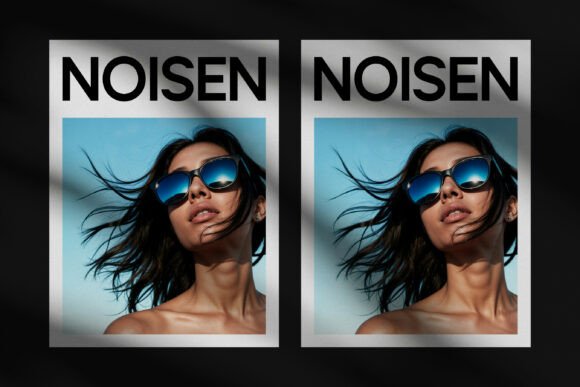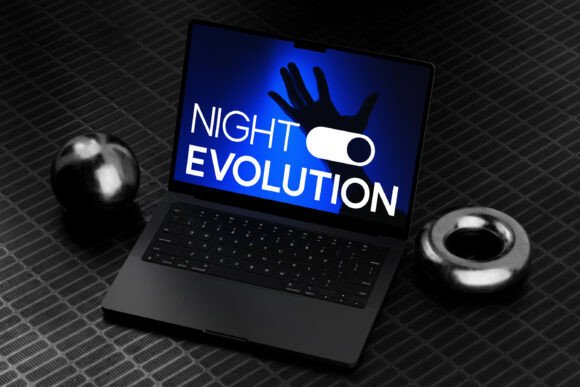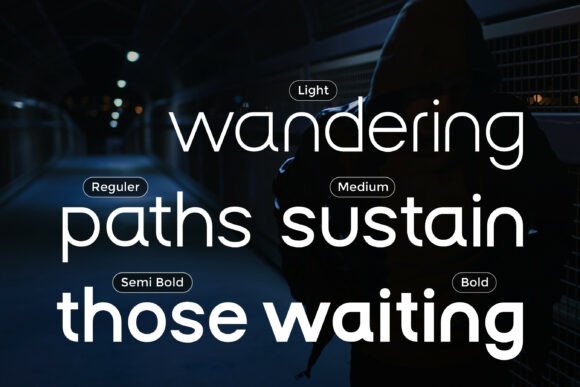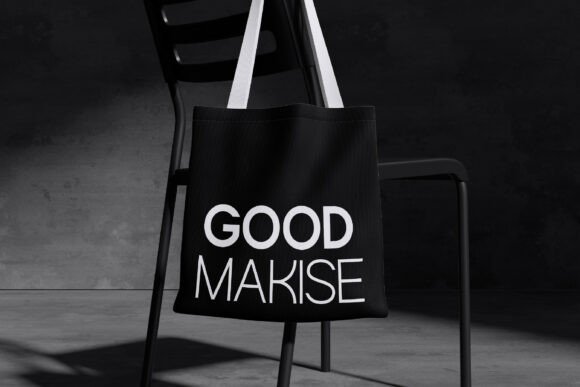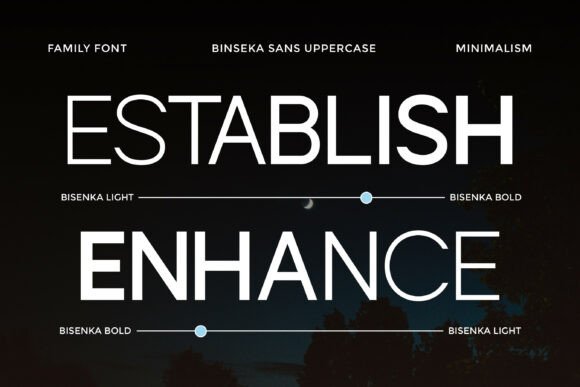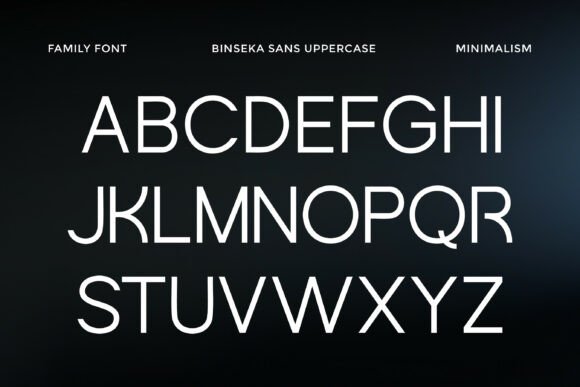
Introducing Binseka Font: The Ultimate Modern Sans Serif for Designers and Crafters
In the world of typography, a font can make or break a design. With the ever-evolving landscape of visual communication, designers and crafters are constantly on the lookout for typefaces that not only convey their message effectively but also add an extra layer of aesthetic appeal. This is where Binseka Font comes into play – a modern sans serif family font that embodies clarity, versatility, and contemporary style. In this article, we’ll dive deep into the features, benefits, and potential applications of Binseka, exploring why it has become a go-to choice for professionals seeking a clean, professional, and minimalist look.
The Design Philosophy Behind Binseka
Binseka is the result of meticulous design and a deep understanding of typographic principles. Its creation was guided by the need for a font that could deliver clear and readable text across various platforms and applications, from digital screens to print materials. The designers aimed to craft a typeface that would offer a harmonious blend of modernity and functionality, making it suitable for a wide array of design projects.
At the heart of Binseka’s design philosophy are its clean lines, balanced proportions, and refined geometry. These characteristics contribute to the font’s professional and minimalist appearance, allowing it to convey messages with precision and elegance. Whether it’s used for bold headlines or readable body text, Binseka ensures consistency and visual harmony, making it an invaluable asset for designers.
Key Features of Binseka Font
- Modern Sans Serif Design: Binseka boasts a contemporary sans serif design that is both stylish and legible. Its modern aesthetic makes it perfect for projects that demand a fresh and current look.
- Versatility: One of the standout features of Binseka is its versatility. The font family includes multiple weights, allowing designers to use it for a wide range of applications, from subtle body text to impactful headlines.
- Clean Lines and Refined Geometry: The clean lines and refined geometry of Binseka contribute to its clarity and readability. These features ensure that the font remains legible even at smaller sizes, making it ideal for digital and print materials.
- Balanced Proportions: The balanced proportions of Binseka’s characters ensure that the font looks harmonious and aesthetically pleasing. This balance is crucial for creating visually appealing text that engages the reader.
Applications of Binseka Font
Binseka’s adaptability and aesthetic appeal make it suitable for a variety of design projects. Here are some of the key areas where Binseka can make a significant impact:
- Branding and Logo Design: Binseka’s modern and professional look makes it an excellent choice for branding and logo design. Its clean lines and minimalist aesthetic can help create a strong and memorable brand identity.
- Digital Media: With the increasing importance of digital presence, Binseka’s legibility on screens makes it a perfect fit for websites, mobile apps, and digital advertising.
- Print Materials: Binseka is equally at home in print. Its clarity and readability make it suitable for brochures, posters, magazines, and any other print materials where text needs to be conveyed effectively.
- Packaging Design: The font’s versatility and aesthetic appeal make it a great choice for packaging design, where both style and clarity are essential.
Why Choose Binseka Font?
In a market flooded with typefaces, Binseka stands out for several reasons:
- Universal Applicability: Binseka’s design ensures that it can be used across various platforms and design projects, making it a valuable addition to any designer’s toolkit.
- Legibility and Readability: The font’s focus on clarity and readability means that it can effectively communicate messages in both digital and print formats.
- Aesthetic Appeal: Binseka’s modern sans serif design and balanced proportions offer a fresh and stylish look that can elevate the visual appeal of any design project.
In conclusion, Binseka Font is a versatile and modern sans serif family font that offers a perfect blend of clarity, versatility, and contemporary style. Its clean lines, balanced proportions, and refined geometry make it an excellent choice for designers and crafters looking to add a professional and minimalist touch to their projects. Whether you’re working on branding, digital media, print materials, or packaging design, Binseka is a reliable and stylish option that can meet your typographic needs.